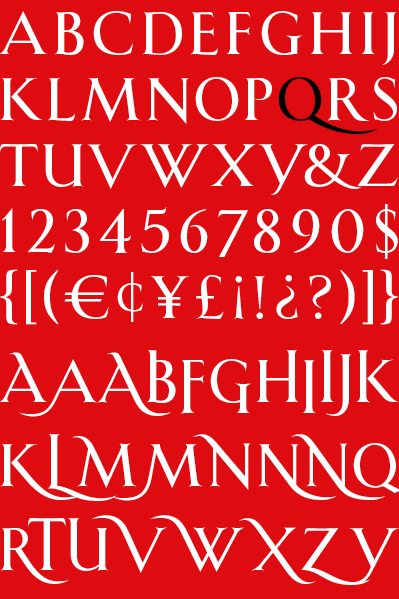
Shàngó Gothic Regular
Shàngó is a beautifully rendered interpretation of Professor F.H.E. Schneidler's elegant titling typeface released in 1936. Although early on I added Medium and Bold weights to the somewhat delicate design of Shàngó, I believed there were other possibilities that might be useful for display use. Download 11-page brochure.